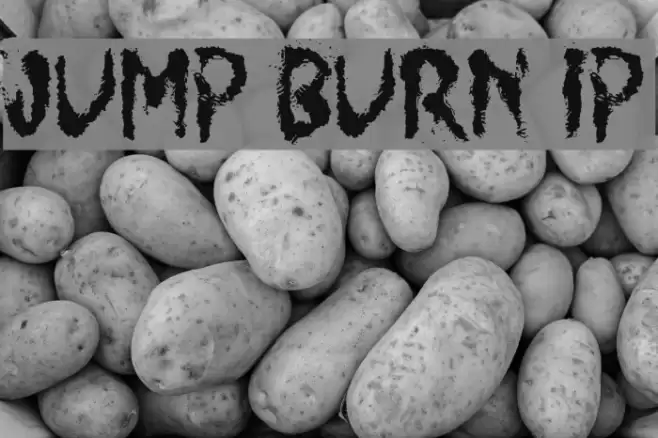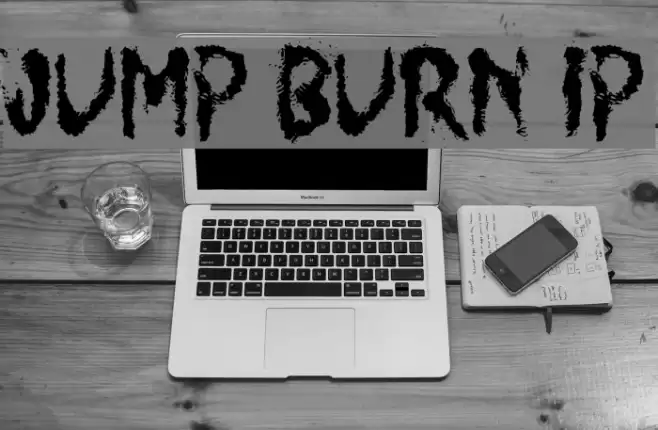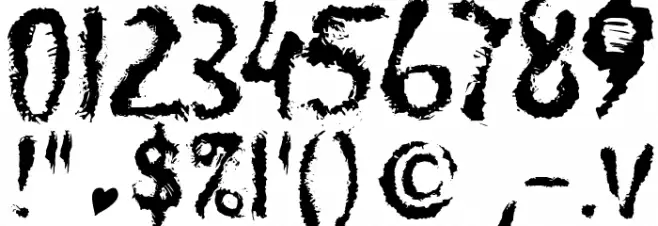
JUMP BURN IP Font
JUMP BURN IP Description
This font features a bold and rugged design, characterized by its distressed and grungy appearance. Each character appears as if it has been painted with a rough brush, giving it a dynamic and energetic feel. The edges are irregular and jagged, contributing to its raw and untamed aesthetic. This style is reminiscent of urban graffiti or street art, making it ideal for projects that require a bold statement. The font maintains a consistent weight throughout, ensuring readability despite its unconventional style.
A bold, grungy font with a distressed, brush-painted look from Fancy fonts.
- Proposed Projects: Ideal for album covers, streetwear branding, posters, and edgy graphic designs.
- Overall Style: Urban, Grunge, Energetic